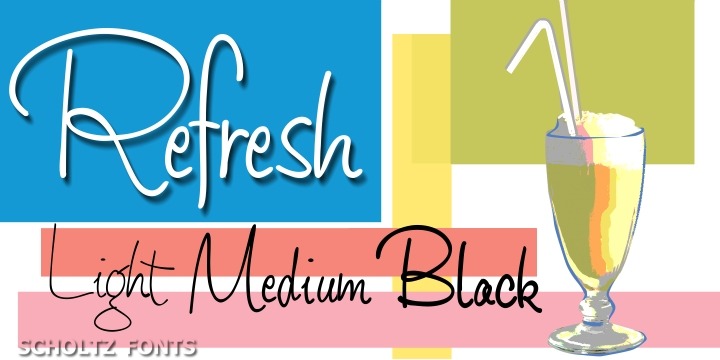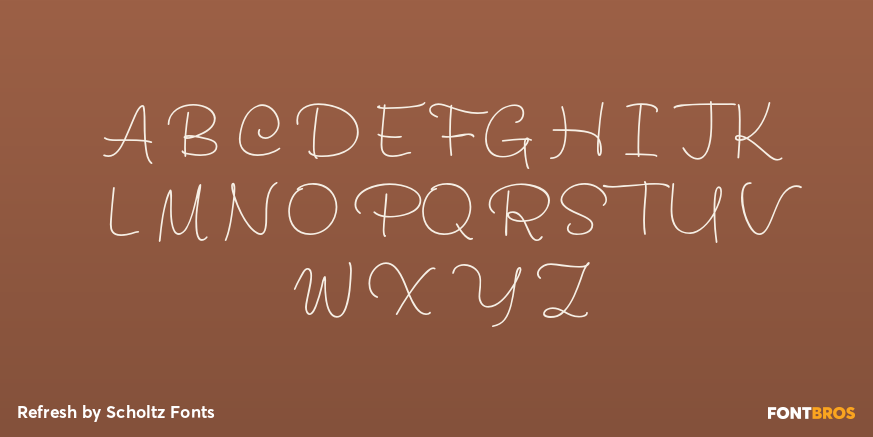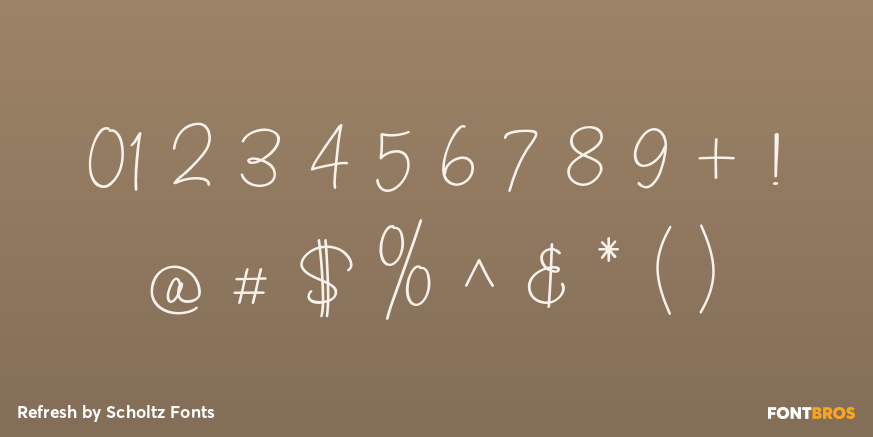
Refresh
Font Family by Scholtz Fonts
Refresh was inspired and partly based on handwritten text from advertisements for a popular cola-based soft drink from the 1950s. I designed the missing characters in the handwriting style of the original.
Refresh, with its three styles, is ideal for any display work needing a feminine, handwritten effect.
Use it for product branding, book covers, invitations, greeting cards where you're looking for charm and movement.
Refresh has not been designed to be used with capital letters placed next to one another: it is not advisable to use text in ?ALL CAPS?. The best effects for headings and subheads are obtained with an initial upper case letter followed by lower case characters. If you are using upper and lower case then it is not necessary to use kerning.
Refresh contains over 250 characters - (upper and lower case characters, punctuation, numerals, symbols and accented characters are present). It has all the accented characters used in the major European languages.